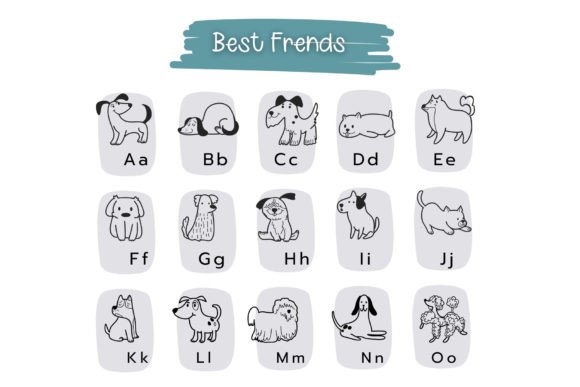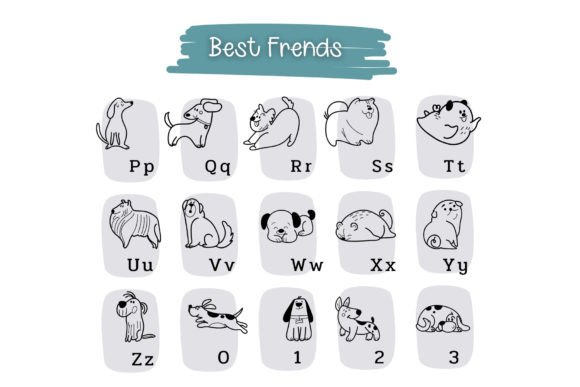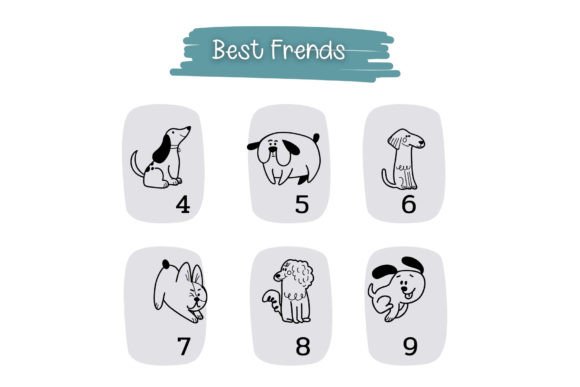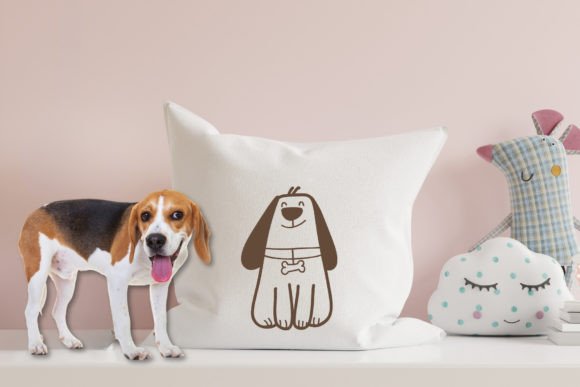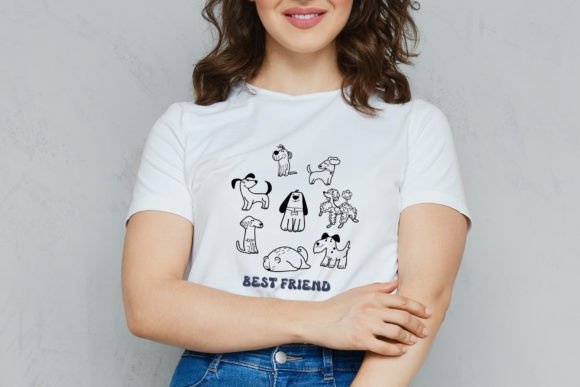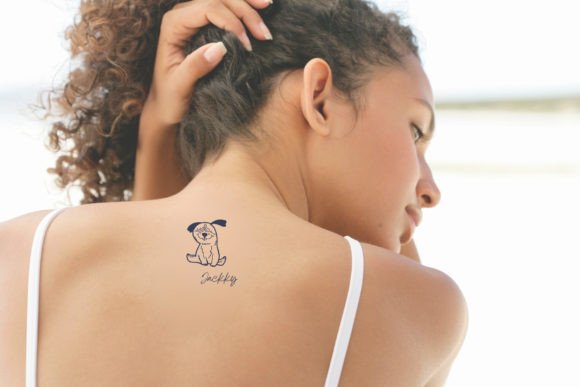
Unleash Your Creativity with Best Friends Doodles Font
Are you a designer, crafter, or DIY enthusiast looking for a unique and adorable font to elevate your creative projects? Look no further than Best Friends Doodles Font! This charming dingbats font is designed with a cute dog theme that’s sure to capture the hearts of dog lovers and crafty enthusiasts alike.
What is Best Friends Doodles Font?
Best Friends Doodles is a specially designed dingbats font that features an array of cute dog illustrations, perfect for adding a touch of whimsy and playfulness to your creative projects. The font includes a wide range of dog-themed images, from adorable puppy faces to fun dog accessories, allowing you to express your creativity and bring your ideas to life.
How Can I Use Best Friends Doodles Font?
The versatility of Best Friends Doodles Font makes it an excellent choice for various creative projects, including:
- T-shirts and apparel: Add a cute dog design to your t-shirts, hoodies, or hats to make them stand out.
- DIY and crafts: Use the font to create personalized cards, gift tags, and other paper crafts.
- Decorations: Add a touch of doggy charm to your party decorations, garlands, and banners.
- Logos and branding: Create a memorable logo for your dog-related business or product with this unique font.
- Social media graphics: Use the font to create engaging social media graphics, such as Facebook posts, Instagram stories, and Twitter headers.
Why Choose Best Friends Doodles Font?
Here are just a few reasons why Best Friends Doodles Font stands out from the rest:
- Unique and exclusive designs: The font features original and exclusive designs that you won’t find anywhere else.
- High-quality images: The illustrations are of high quality, ensuring that they look great even when scaled up or down.
- Easily customizable: The font is easy to use and customize, making it perfect for designers and non-designers alike.
Tips and Tricks for Using Best Friends Doodles Font
Here are some tips to help you get the most out of Best Friends Doodles Font:
- Experiment with different colors and textures: Add an extra layer of depth and interest to your designs by experimenting with different colors and textures.
- Mix and match illustrations: Combine different illustrations to create a unique and eye-catching design.
- Use the font for backgrounds and patterns: Use the font to create backgrounds and patterns for your designs, adding a touch of personality to your projects.